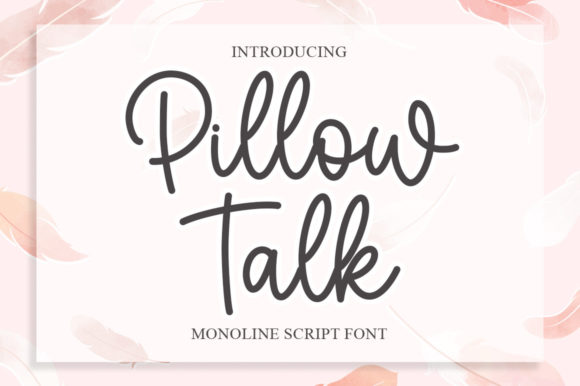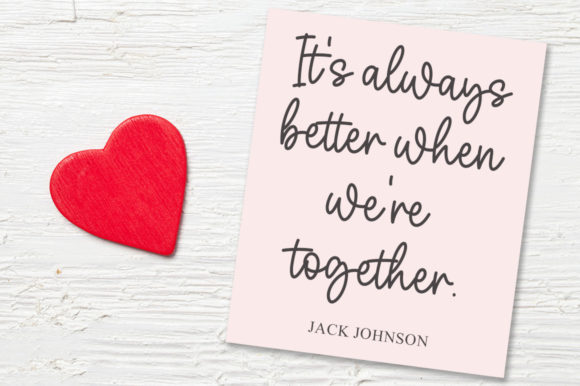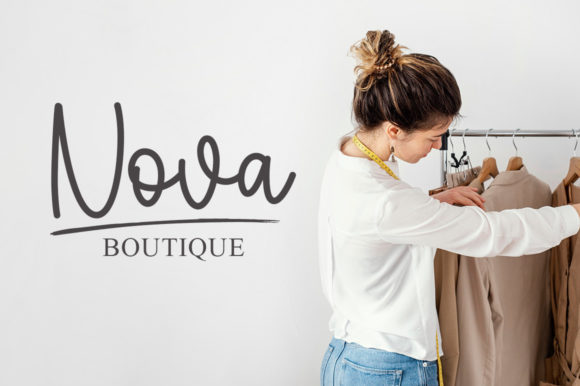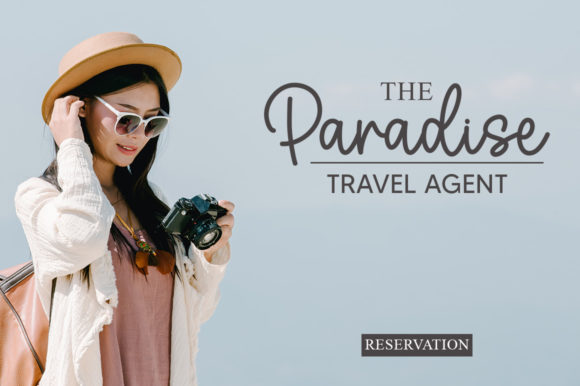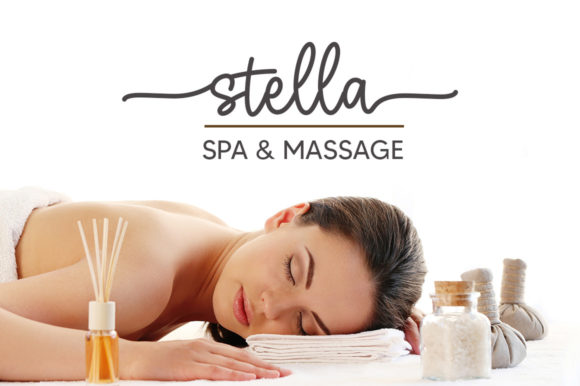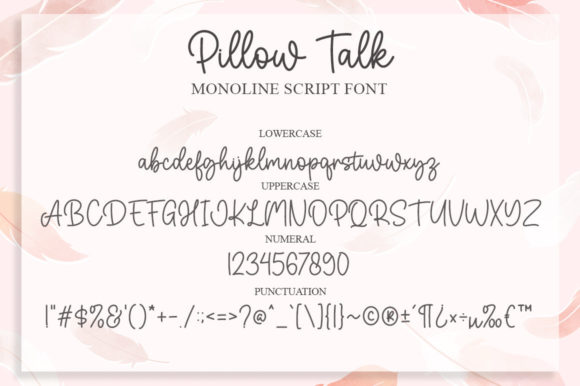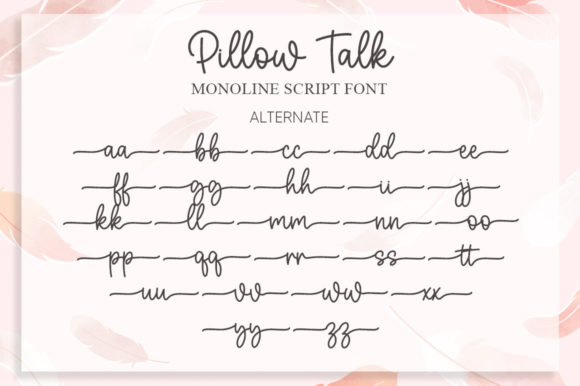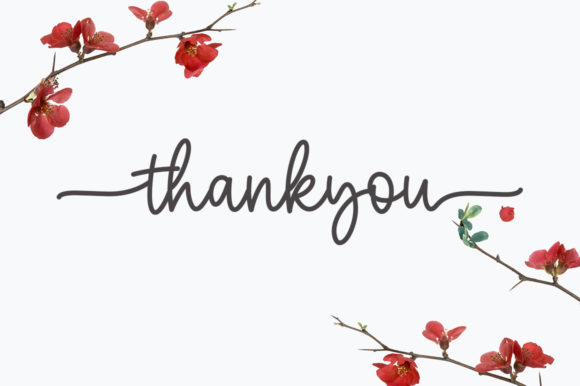
Pillow Talk Font
About Pillow Talk Font
Pillow Talk is a font that exudes a delicate and flowing handwritten style, imbued with a sense of daintiness and grace. Its charming and joyful demeanor makes it a perfect choice for a variety of design projects, particularly those that require a touch of romance and personalization.
The sweet and inviting nature of Pillow Talk lends itself beautifully to writing wedding invitations, crafting heartfelt cards, and creating designs that evoke an intimate and romantic atmosphere. Its flowing strokes and carefully crafted characters contribute to a sense of warmth and connection, making it an ideal companion for conveying heartfelt messages and emotions.
One of the notable features of Pillow Talk is its PUA encoding, which provides you with convenient access to a plethora of glyphs and swashes. This functionality allows you to effortlessly incorporate decorative elements and unique variations into your designs, further enhancing their visual appeal and allowing you to tailor the font to match your creative vision.
Whether you’re aiming to create a captivating wedding invitation, a heartfelt greeting card, or any other design that seeks to evoke feelings of tenderness and intimacy, Pillow Talk rises to the occasion. Its ability to infuse a personalized and romantic touch into your projects can help create a lasting impression on your audience.
In summary, Pillow Talk is a font that encapsulates a dainty and flowing handwritten style, characterized by its sweet and joyful demeanor. Its PUA encoding and versatile design make it a valuable asset for designers seeking to add a personalized and romantic touch to their creations. With Pillow Talk, you have the tools to craft designs that resonate with emotions and create a connection with your audience.